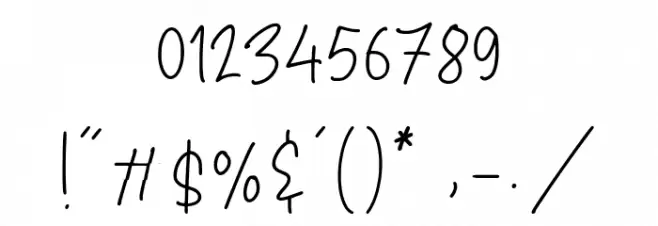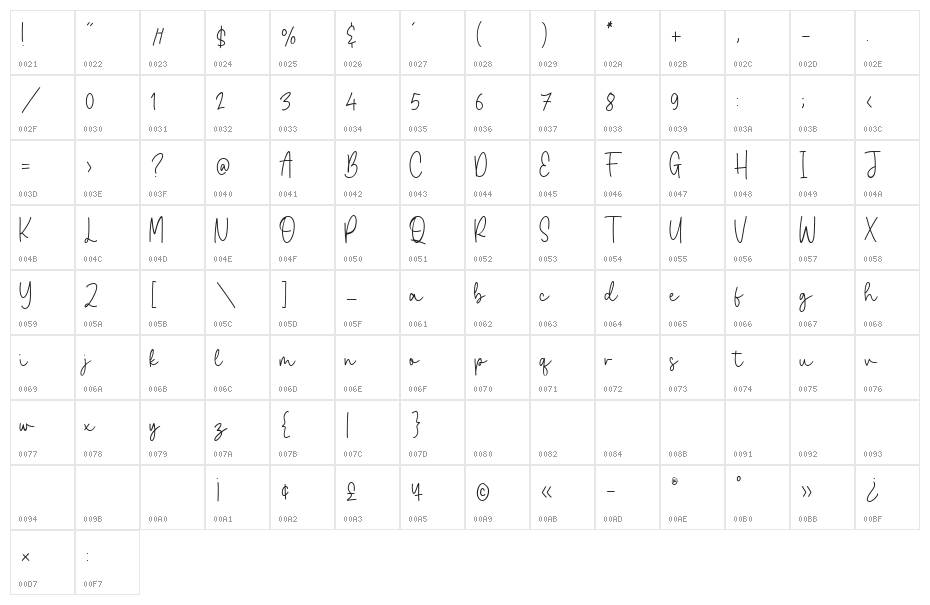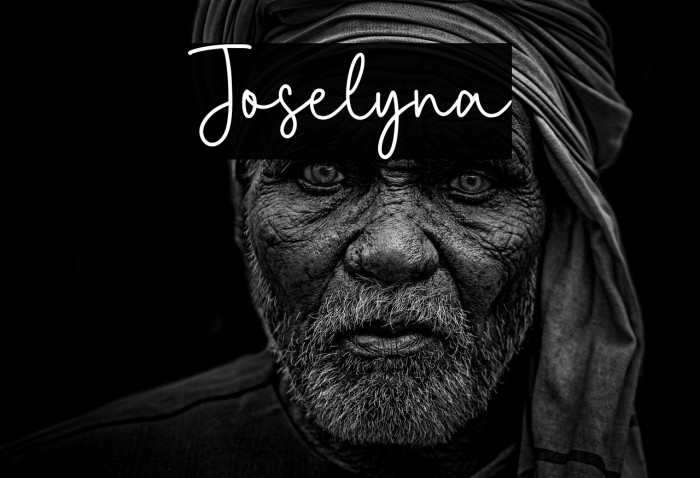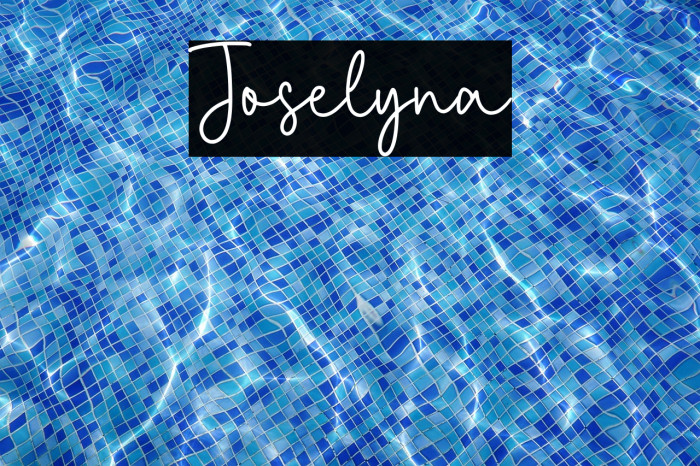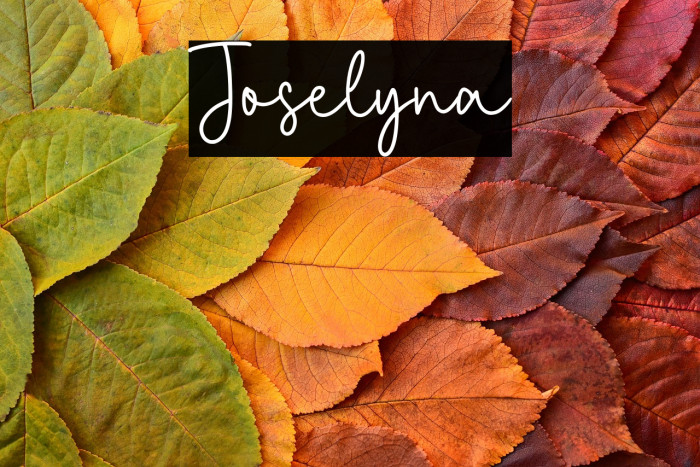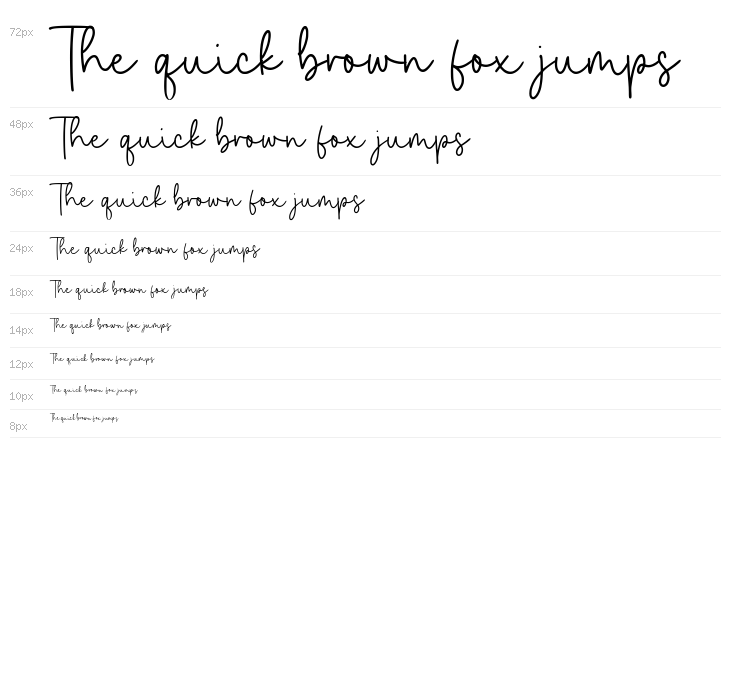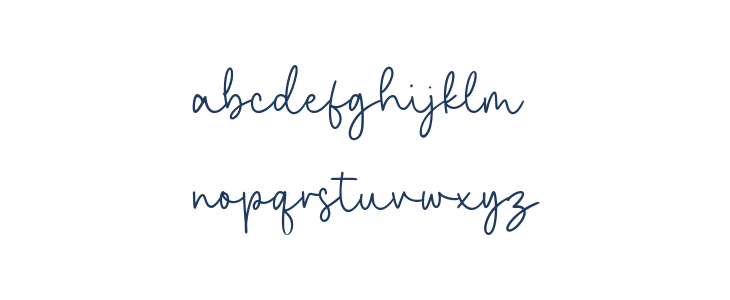
Joselyna Font
Joselyna Description
This font features a playful and casual handwritten style, characterized by its smooth, flowing lines and slightly irregular letterforms. The uppercase letters are tall and narrow, with a whimsical touch that adds personality to each character. The lowercase letters maintain a consistent flow, enhancing the font's readability while preserving its informal charm. Numbers and special characters are designed to match the overall aesthetic, ensuring a cohesive look across all text elements. The font's light strokes and open counters contribute to its airy and approachable feel, making it suitable for a variety of creative applications.
A playful, casual handwritten font with smooth, flowing lines and a whimsical touch from Uncategorized fonts.
- Proposed Projects: Ideal for greeting cards, invitations, personal branding, and social media graphics.
- Weight: Light
- Overall Style: Casual
- Use Case: Headlines, Logos, Invitations